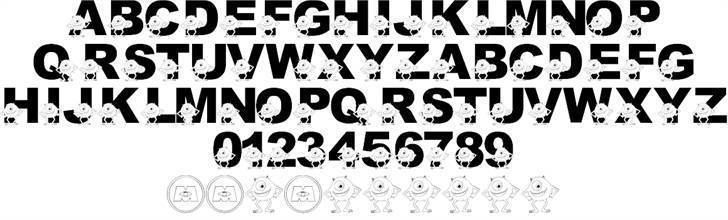
LMS Googly Bear font
LMS Googly Bear font is widely recognized for its unique style, often used for pairing purposes. Check out more unique fonts here.
This wonderful font has made substantially in a tremendous type keeping an opentype define the shape. This font comes underneath the elegance of ambitious fonts. That furthermore comes under the class of the condensed font.
Style Of LMS Googly Bear font Free